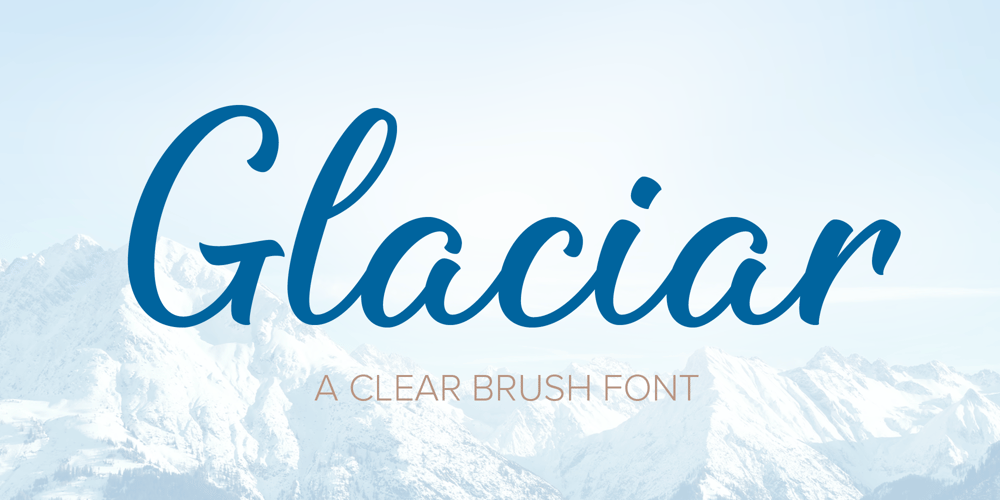
Glaciar
Glaciar font
Glaciar Font Family was designed by Olga Ktitorova and published by TripleHely. Glaciar contains 1 styles and family package options. Glaciar is a script typeface based on brush handwriting and inspired by old-style bas-reliefs. All contours were carefully cleaned of brush roughness, but at the same time, minor imperfections were left to create the unique character of this fontGlaciar has a built-in auto replacement for lowercase letters without connecting strokes (in the case of word ends) and for ligatures (in the case of letter pairs that do not fit well together). In addition, there are alternates glyphs with starting and ending swashes – the last ones can be used with any OpenType software. And finally, the font has wide multilingual support and can be used in texts in 195 languagesGlaciar is a good choice for branding and design projects as well as a cute text overlay to any background image